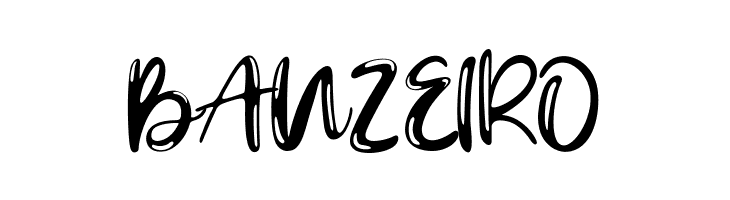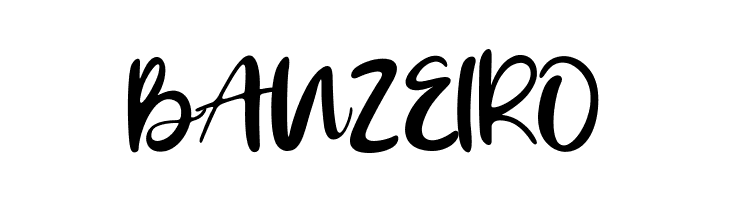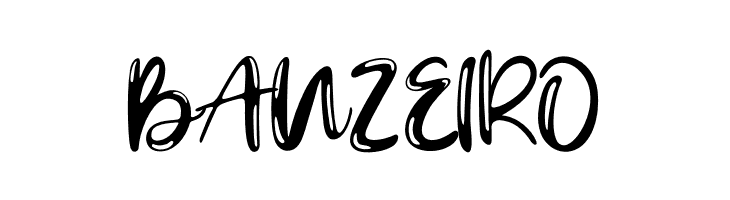
A bold, flowing script font with a handwritten, artistic style.
A bold, cursive handwritten font with dynamic and playful strokes.
A bold, expressive handwritten font with fluid, interconnected strokes.
A playful, handwritten font with tall, narrow letters and smooth strokes.
A dynamic and expressive script font with fluid, cursive letterforms.
A fluid and elegant script font with dynamic letterforms.
A bold, expressive handwritten font with fluid strokes and artistic flair.
A playful, handwritten script font with medium contrast and dynamic strokes.
Playful decorative script font.
A bold, energetic script font with fluid, dynamic strokes and a casual, handwritten feel.
A bold, brush-style font with dynamic, textured strokes.
A playful, handwritten font with bold, dynamic strokes.
A playful, hand-drawn font with bold, irregular characters.
A playful, hand-drawn font with whimsical, uneven strokes.
A bold, handwritten-style font with thick strokes and a dynamic, casual feel.
A bold, handwritten font with smooth, connected letters and a casual style.
A dynamic, handwritten font with expressive curves and fluid strokes.
A dynamic and elegant script font with fluid, cursive strokes.
A bold, dynamic script font with a playful, handwritten style.
A bold, cursive font with smooth, flowing lines and interconnected characters.
A bold, italic script font with a modern, handwritten style.
A bold, flowing script font with elegant, cursive letterforms.
An elegant, cursive font with dynamic strokes and artistic flourishes.
A graceful and flowing script font with a handwritten style.